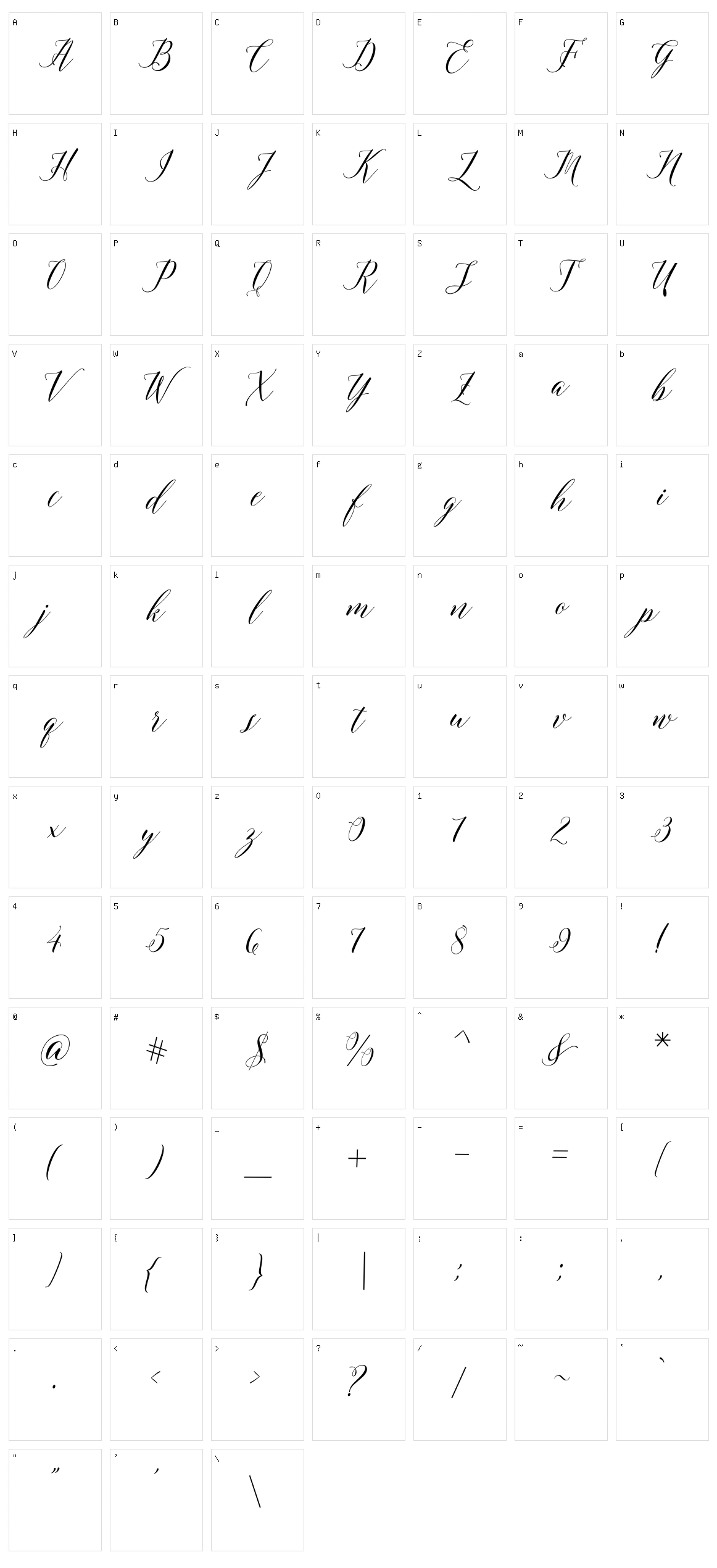
The free font Edelweis Script is carefully designed by Joel Maker Studio, showcasing a thoughtful balance of creativity and usability and falls under the Script font style. When you download the ZIP file, it contains only 32.61 KB of font files, making it lightweight and quick to download. Please review the license details below to understand permitted usage and distribution rights. If license information is not available, we recommend using this font for personal projects only or contacting the author directly for commercial usage permissions.